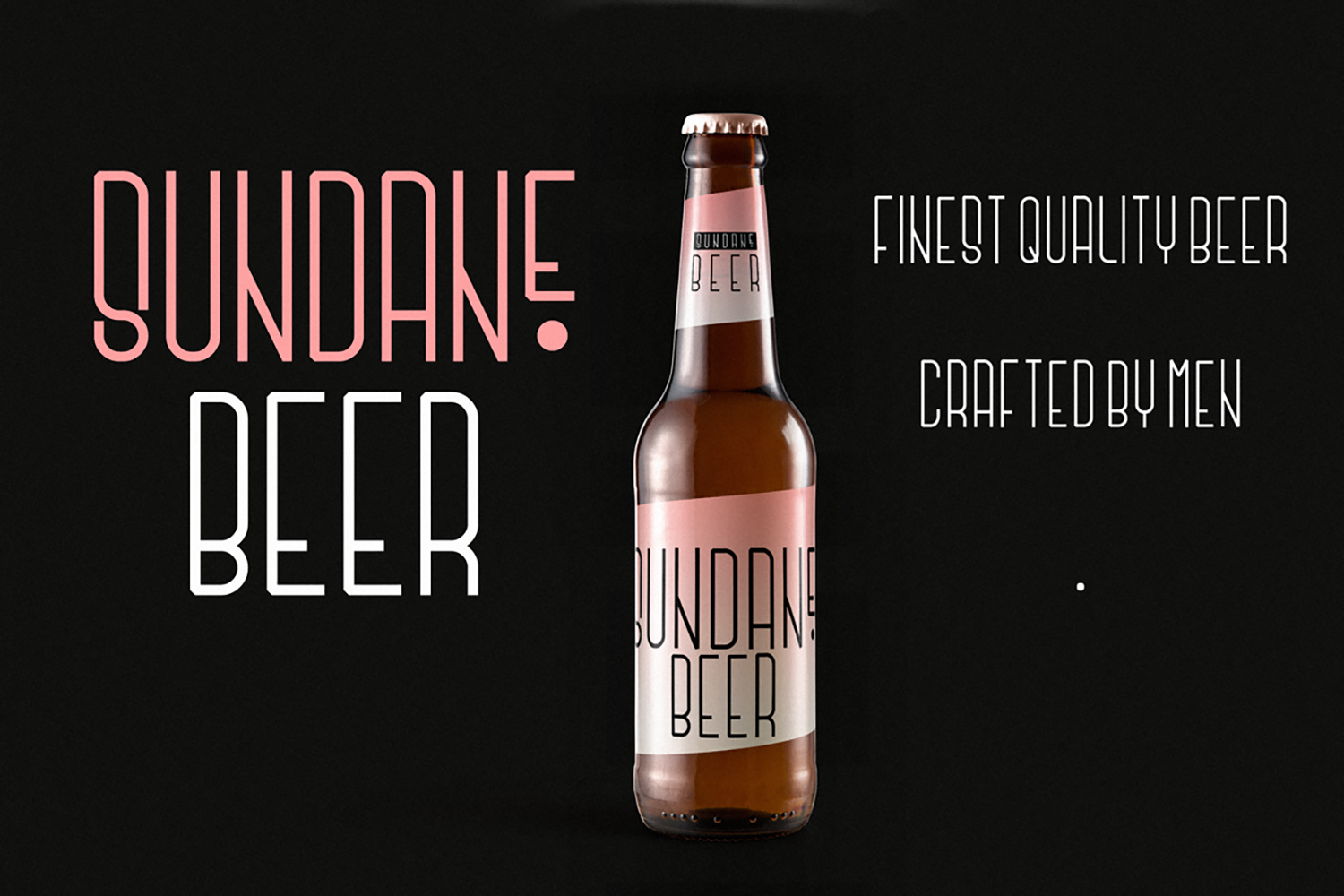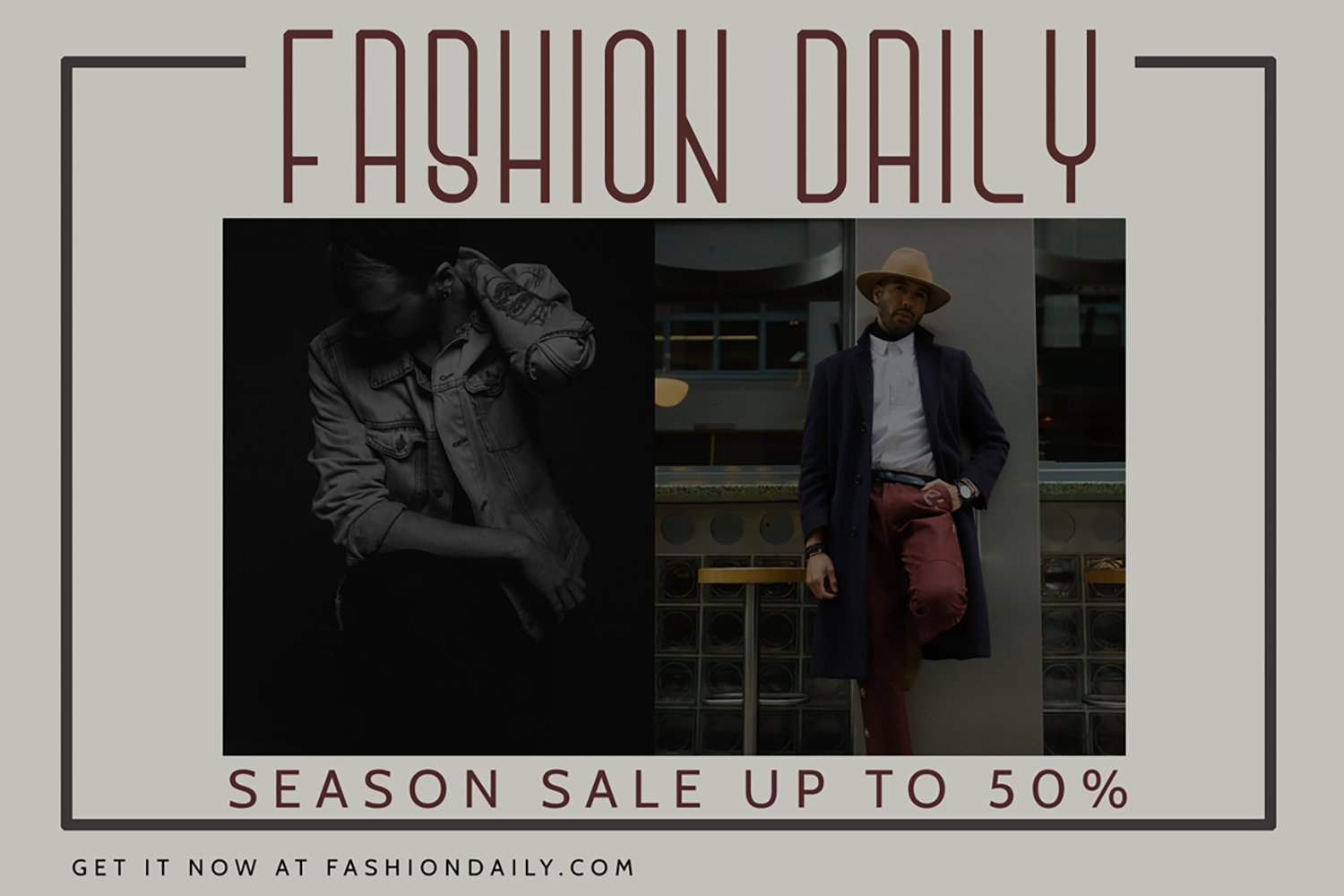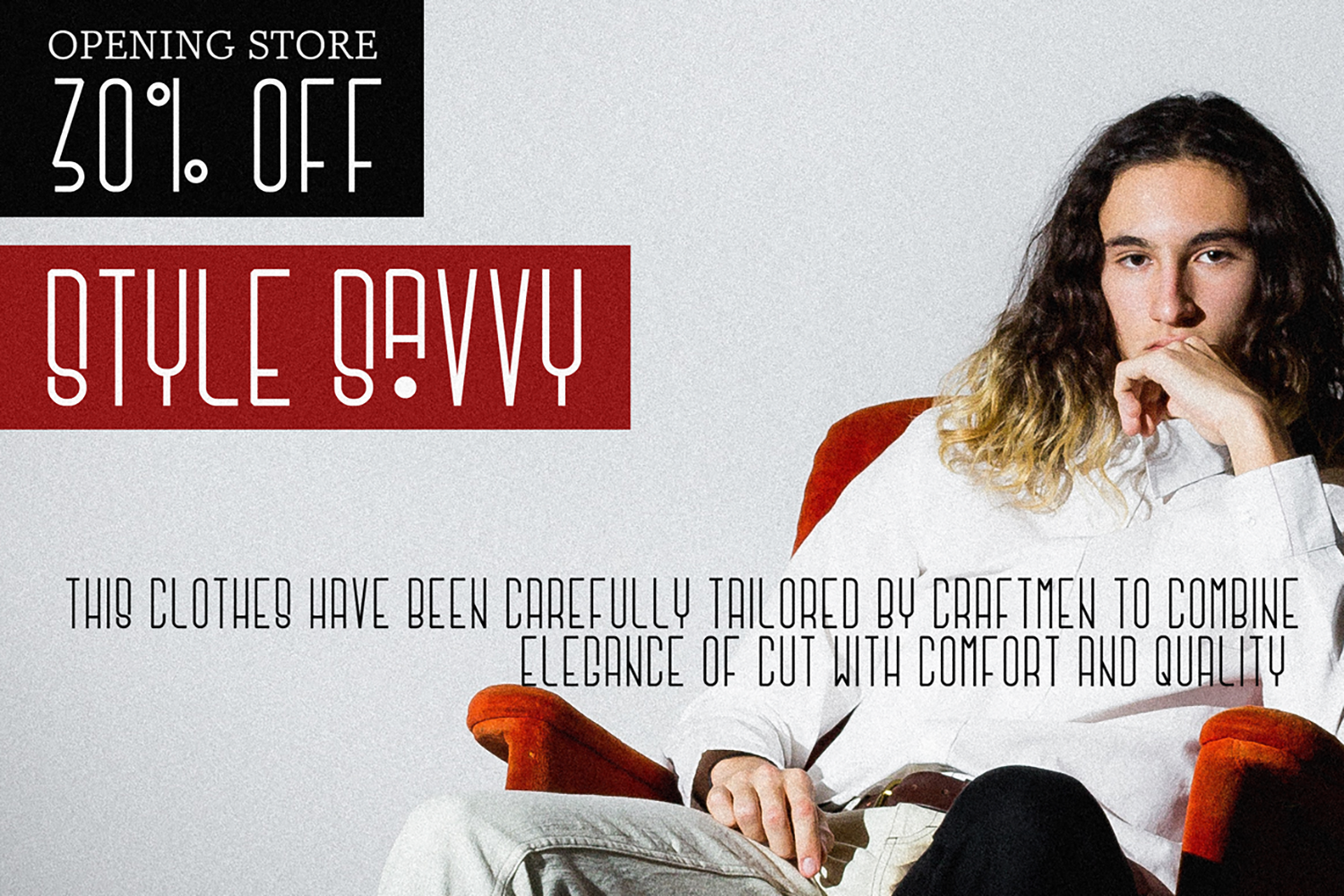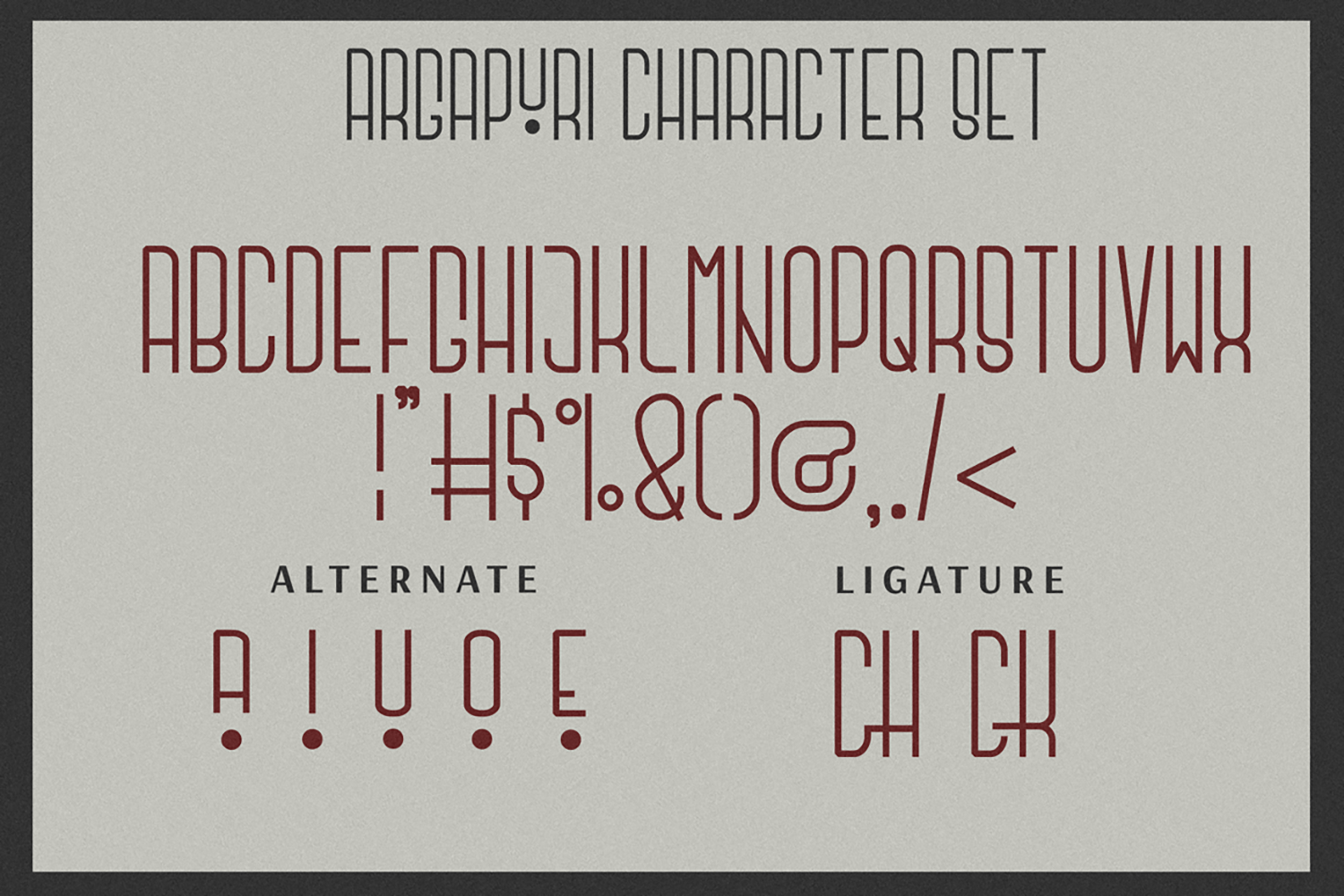
Argapuri Free Font
Argapuri Free Font is a tall Ultra condensed sans serif font. You can create something very fresh and modern with Argapuri font. This font is perfect for headlines, quotes, Logo, Web, magazine covers, editorial design, print posters, signage, window shop design, and much more. This free typeface was designed by a talented Akaitype Studio. If you like it don’t forget to check out the full version.